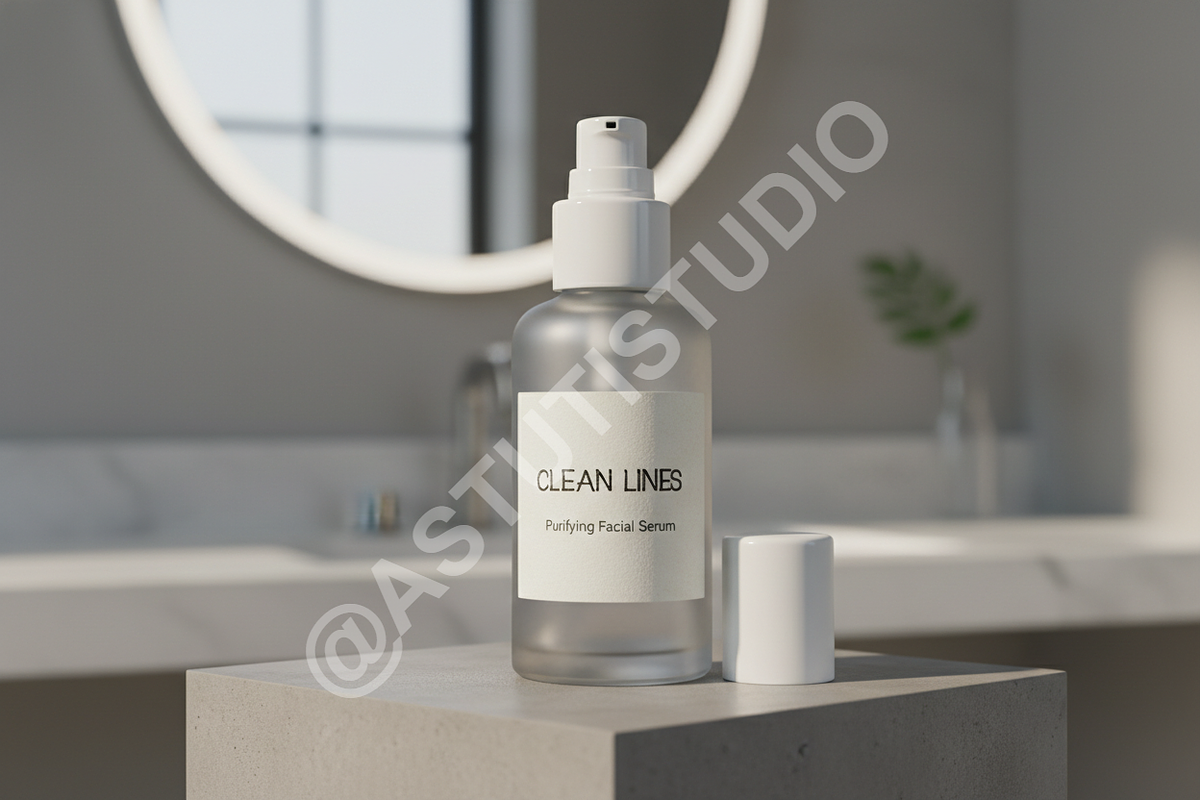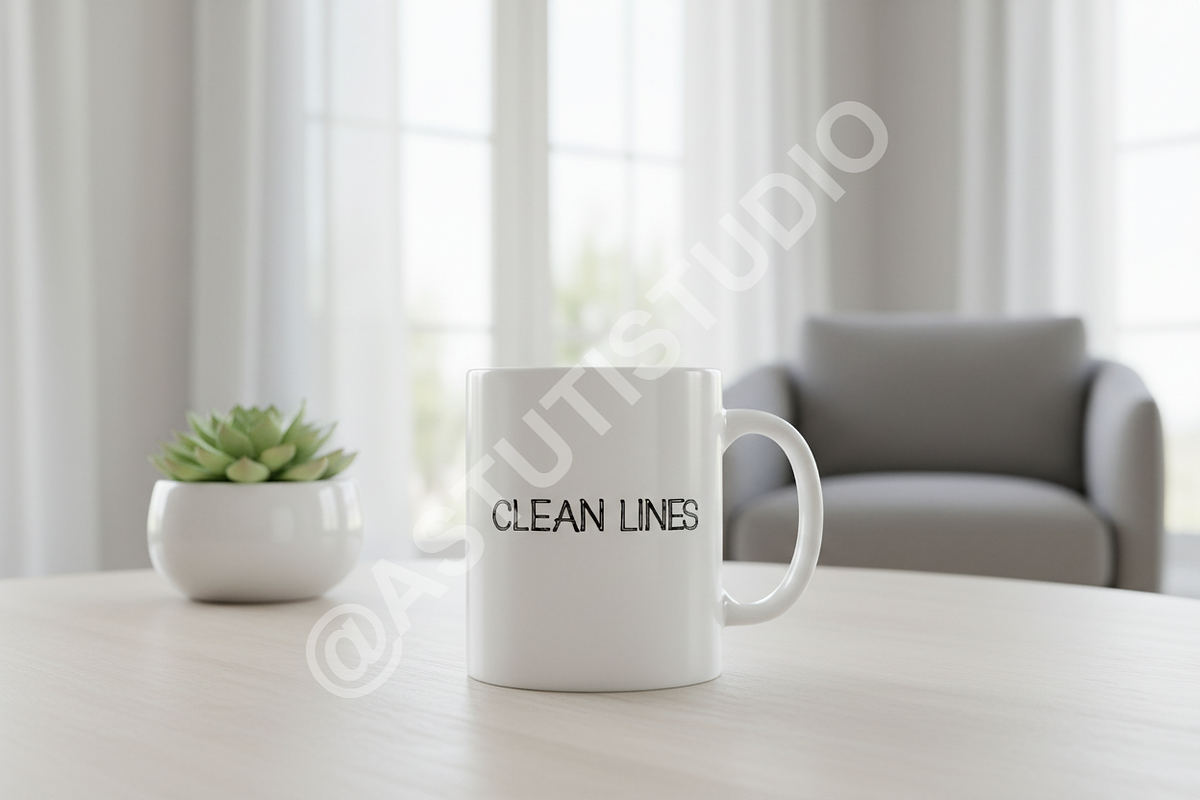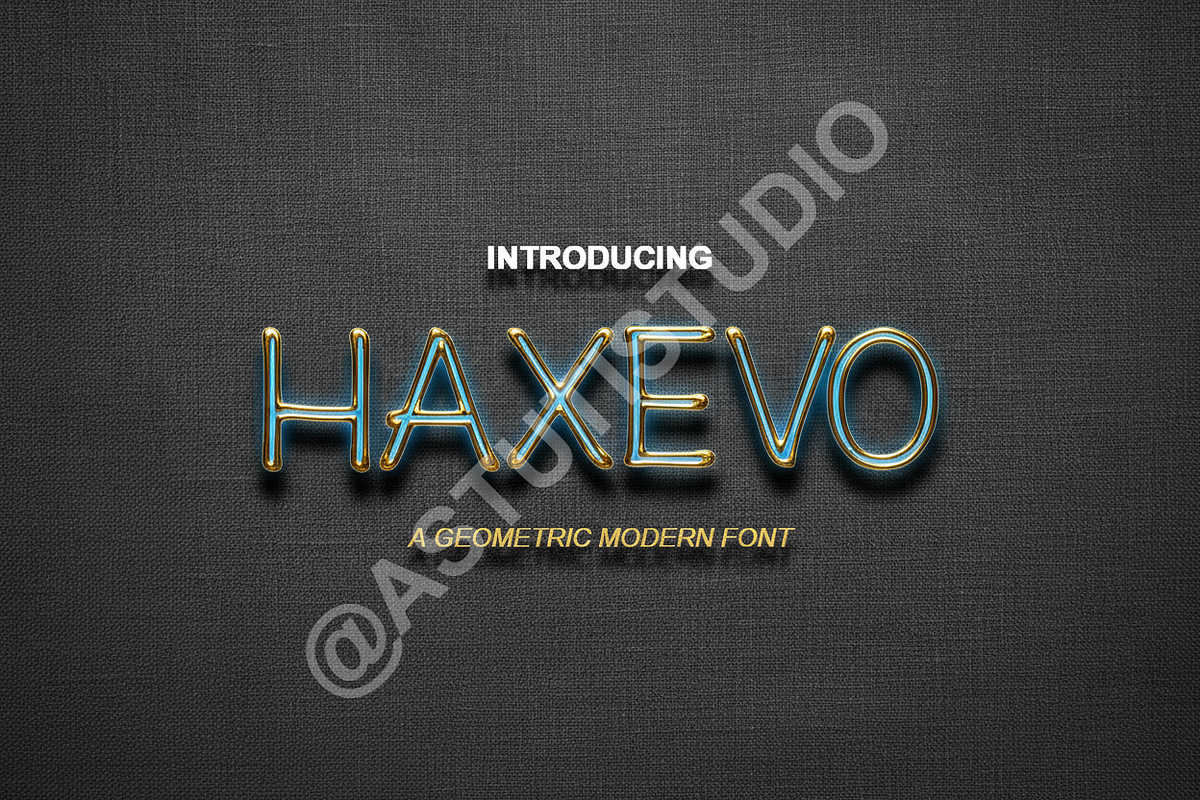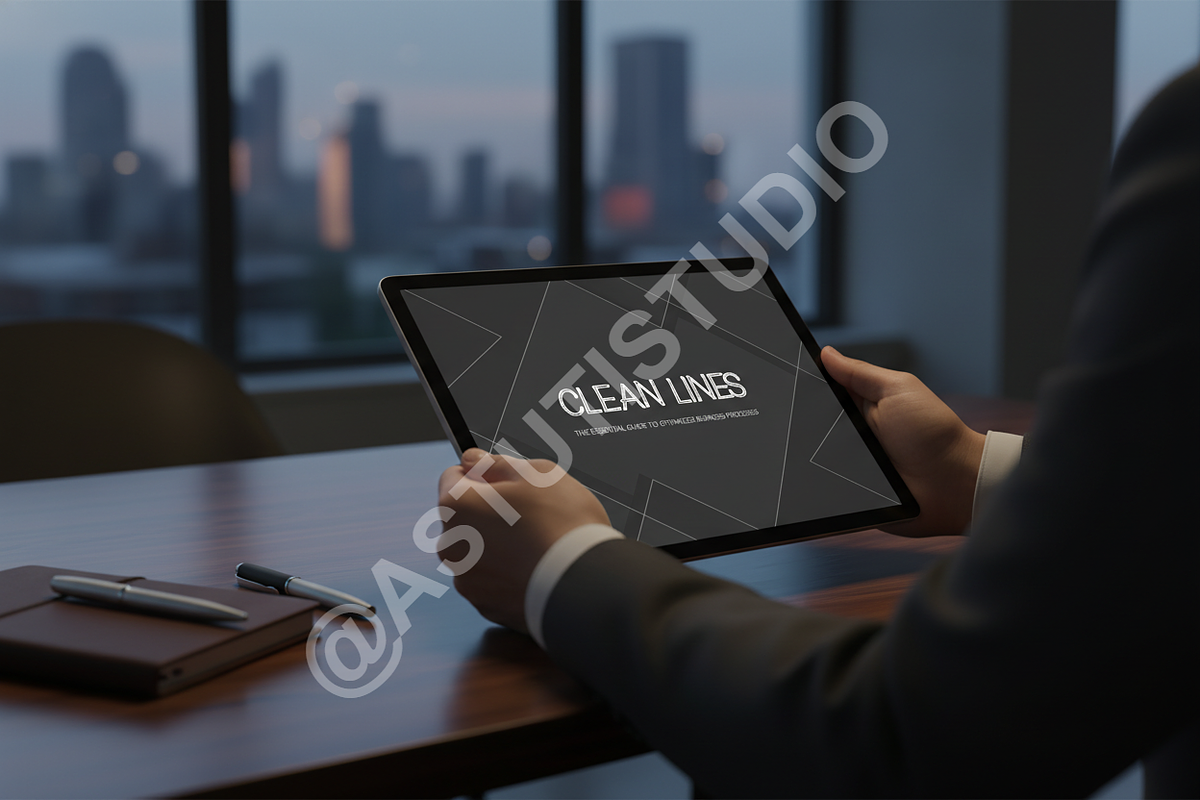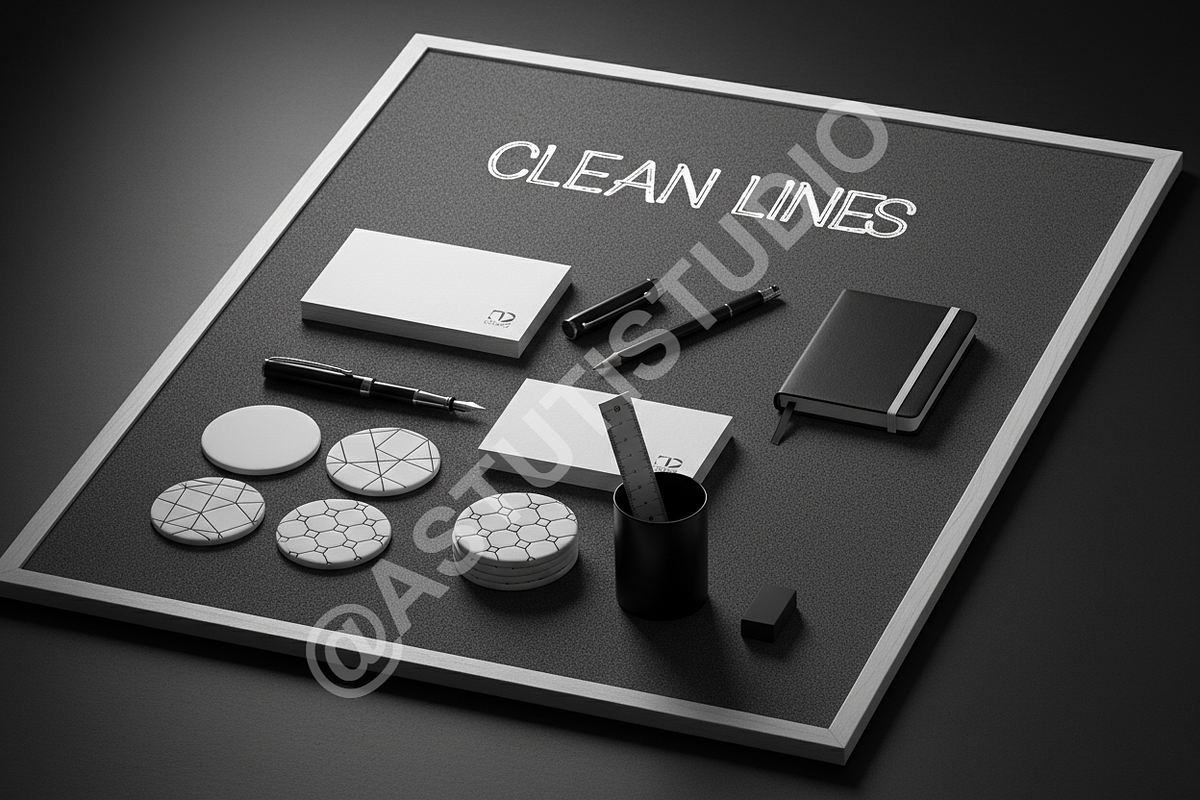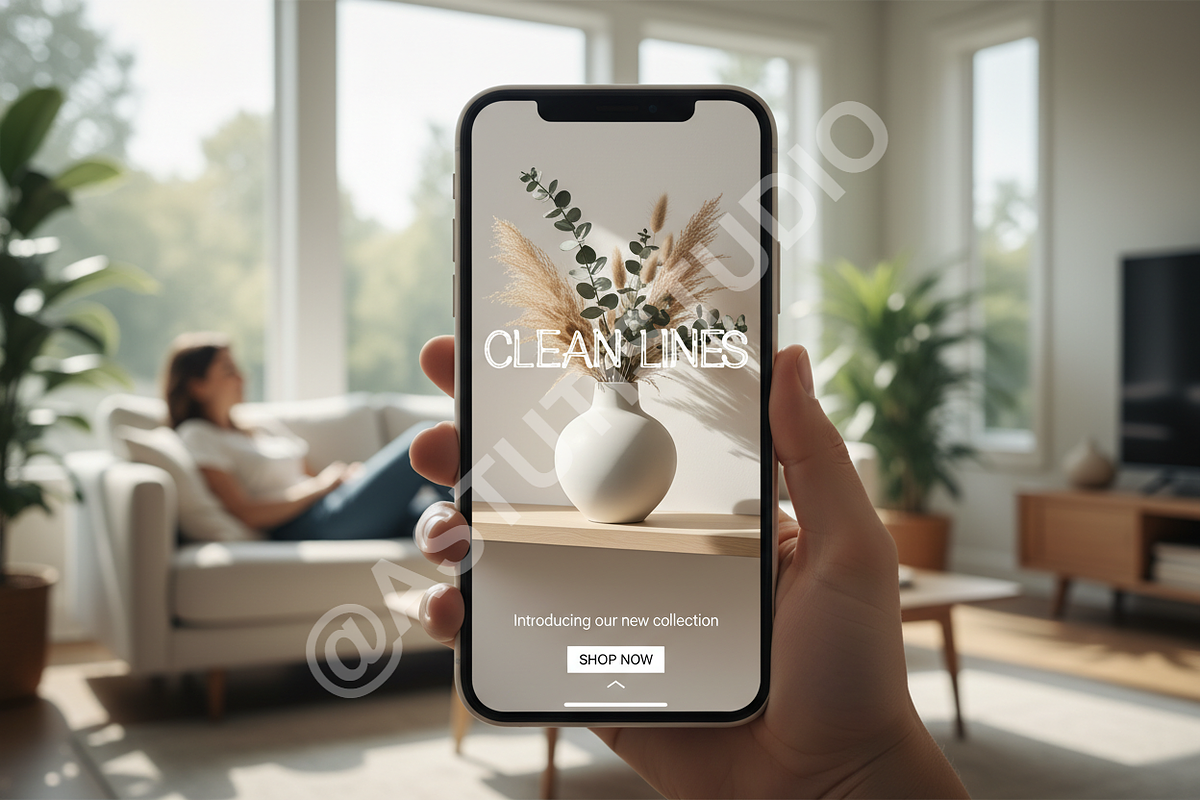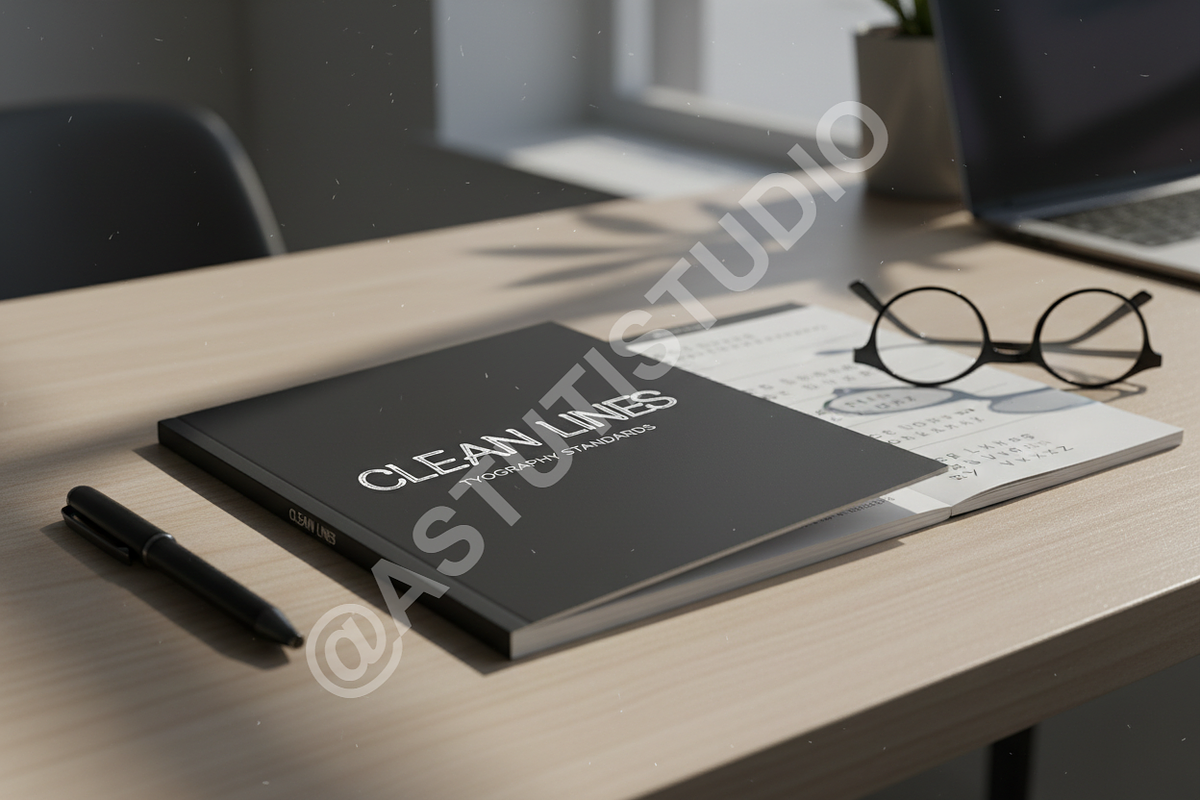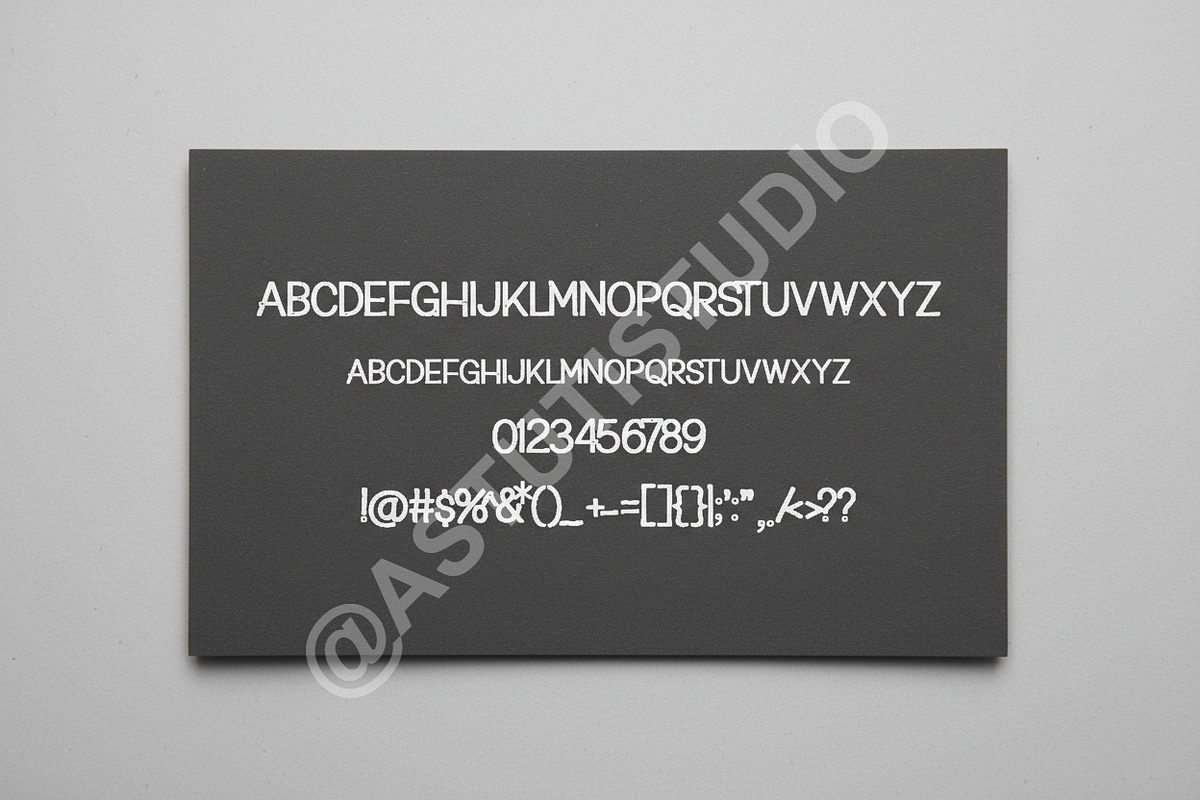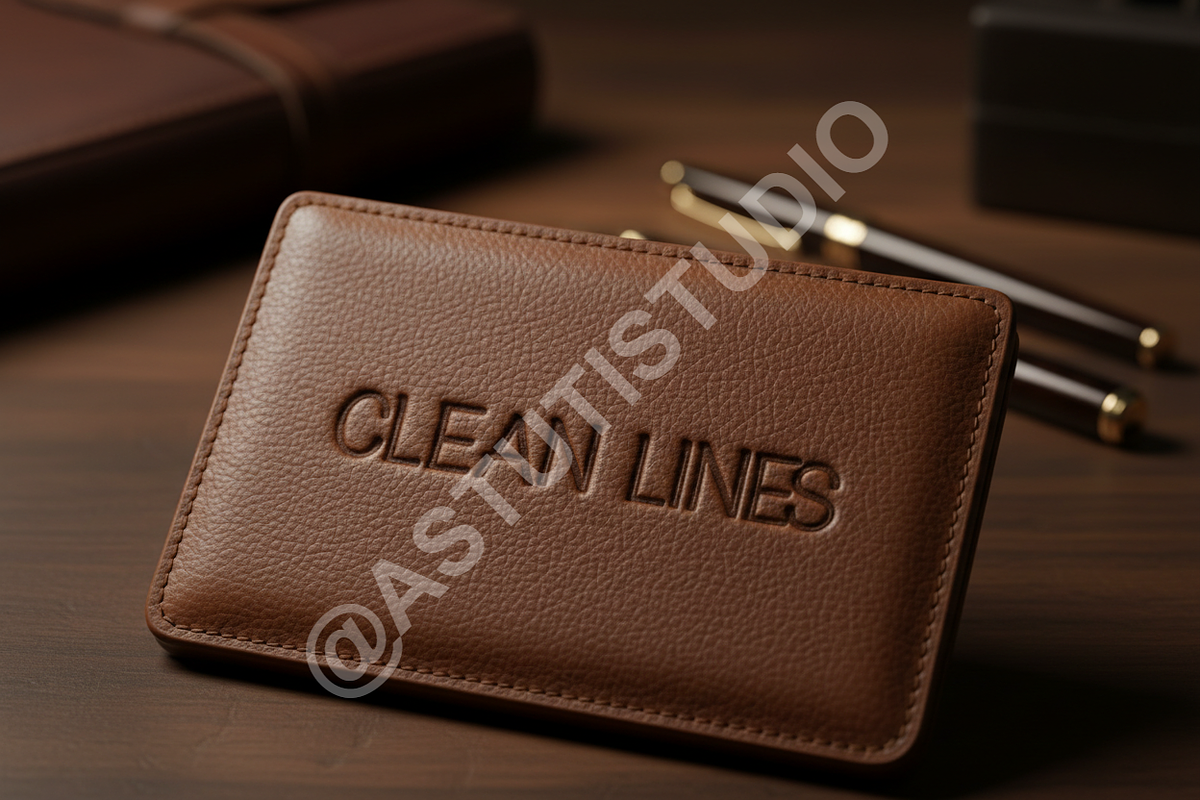
Haxevo - Modern Elegant Serif Typefa
Introduction: Haxevo is a premium serif typeface meticulously crafted to embody luxury and timeless sophistication. Designed for those who demand excellence in their visual communication, this font seamlessly blends classic proportions with modern, clean lines. Whether you are building a high-end brand identity or designing a sleek editorial layout, Haxevo provides the refined aesthetic necessary to elevate your creative projects to a professional studio level.
Ideal For: Luxury Branding, Editorial Design, High-Fashion Magazines, Social Media Graphics, Wedding Invitations, and Minimalist Logo Design.
- High-contrast letterforms for a sophisticated look
- Unique discretionary ligatures and stylistic alternates
- Precise kerning and balanced proportions
- Multilingual support for global accessibility
- Clean, sharp edges optimized for both print and digital displays